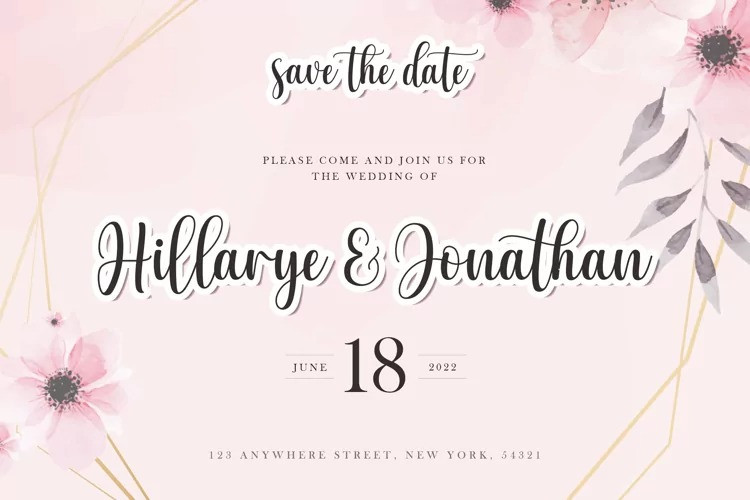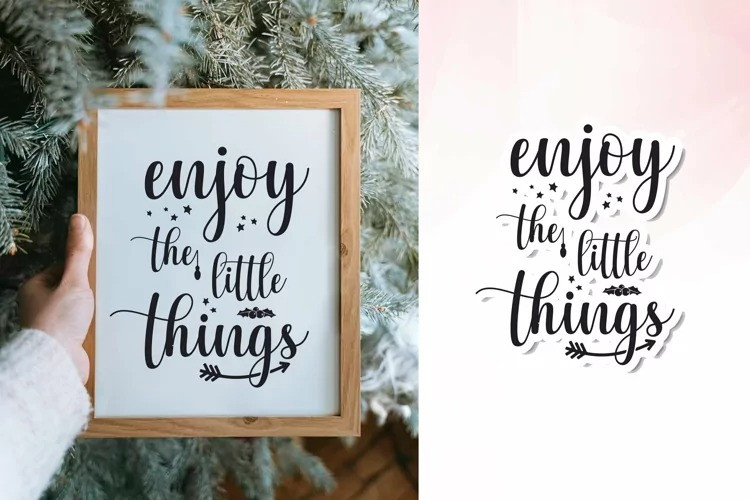
Fishing Font
Fishing Script Font is a fun and sophisticated handwritten font that embodies charm and authenticity in every character. It would be a great choice for any project that needs natural handwritten typography!